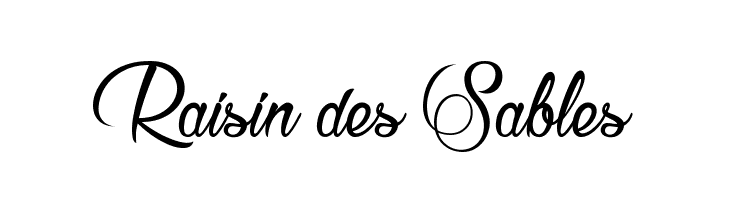
A sophisticated script font with elegant, flowing letters and decorative uppercase characters.
A dynamic and elegant script font with a cursive style and smooth curves.
A sophisticated and elegant script font with flowing, cursive letterforms.
A dynamic and elegant script font with flowing, cursive letterforms.